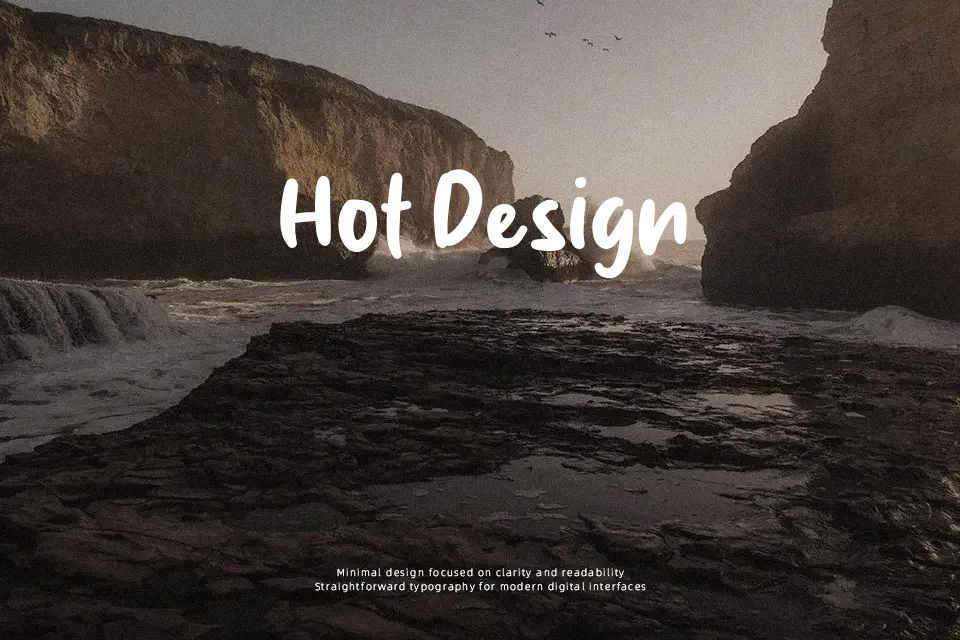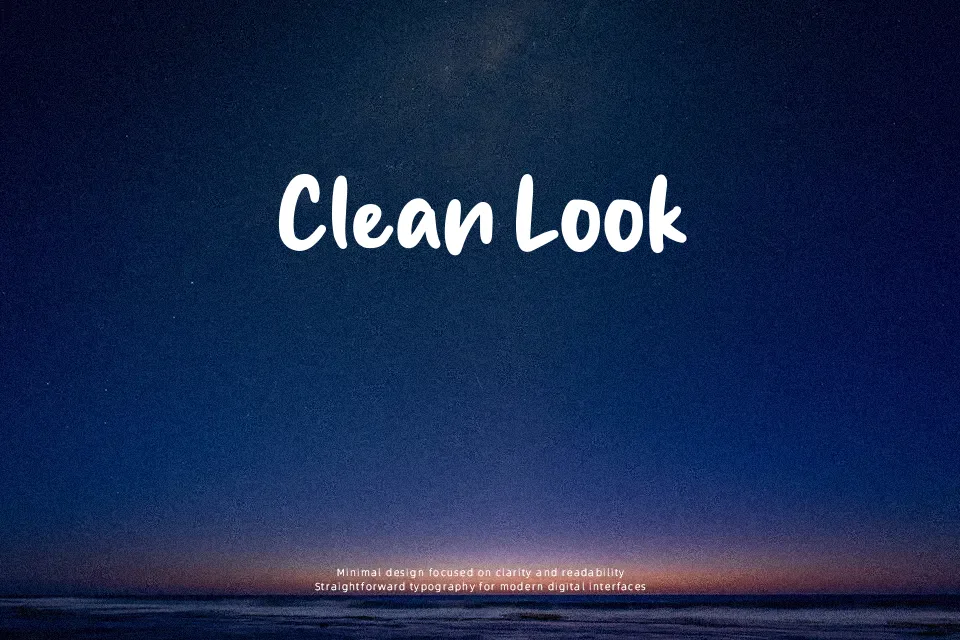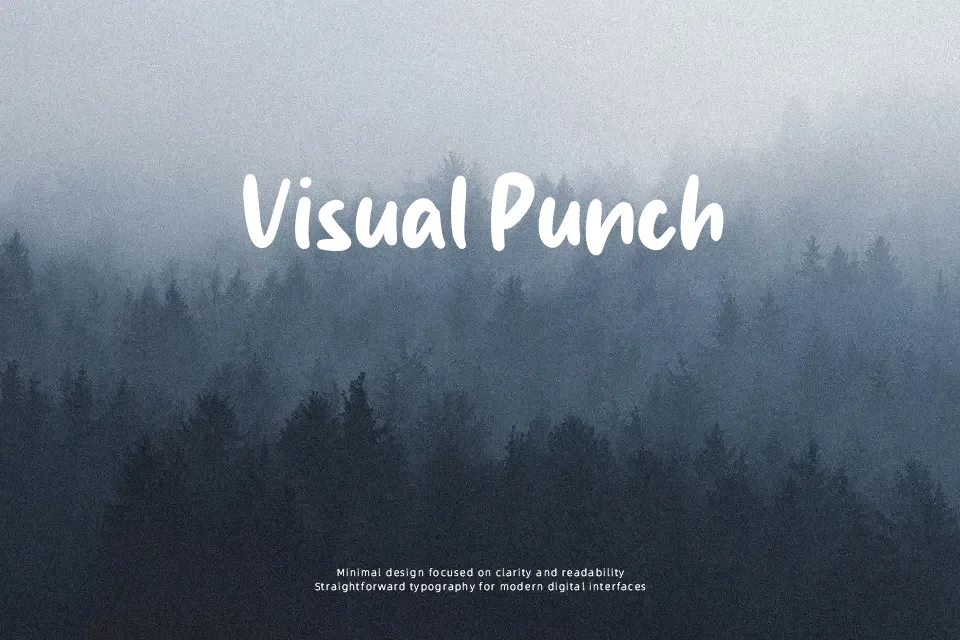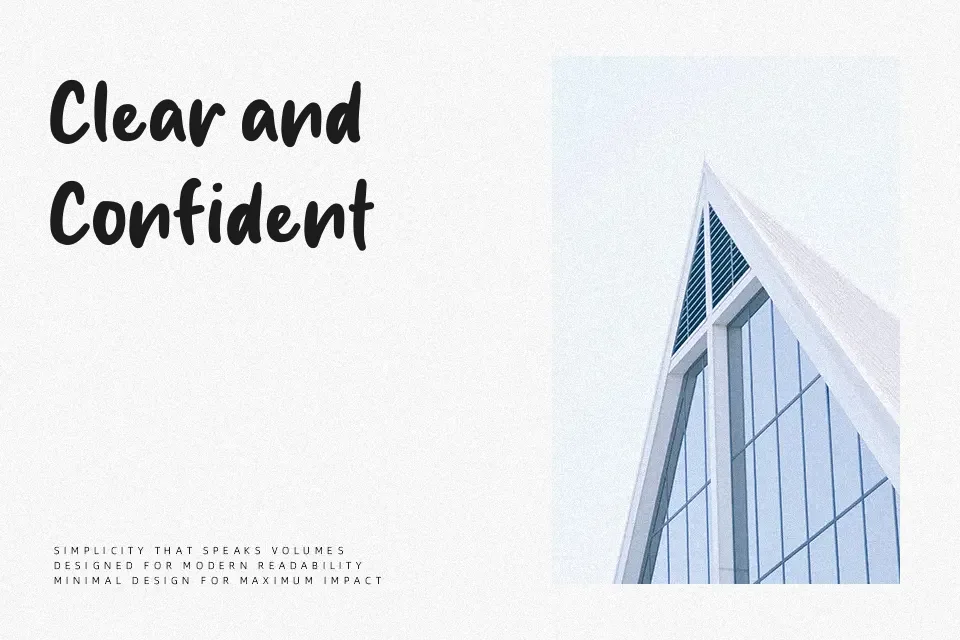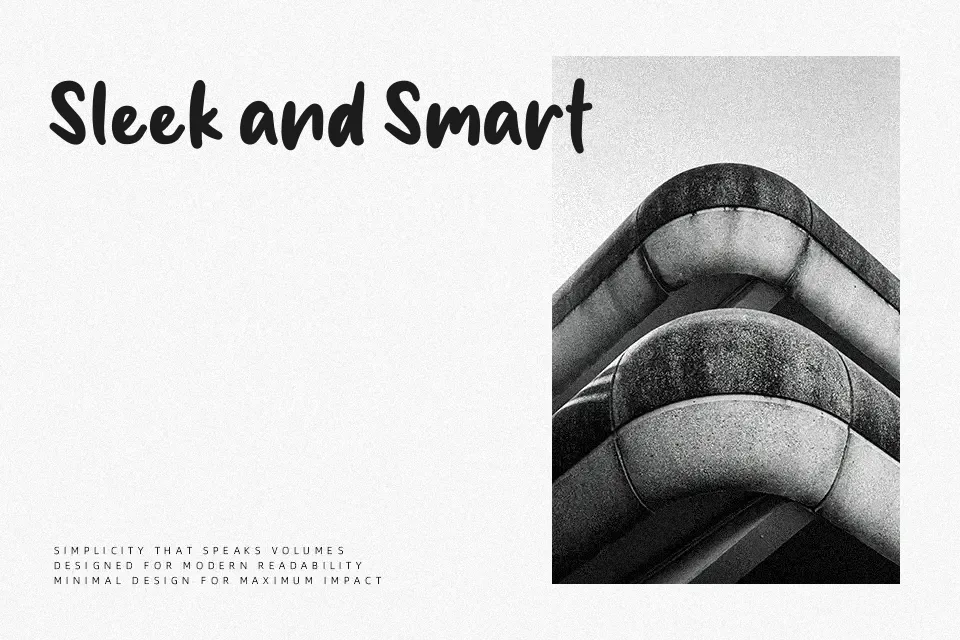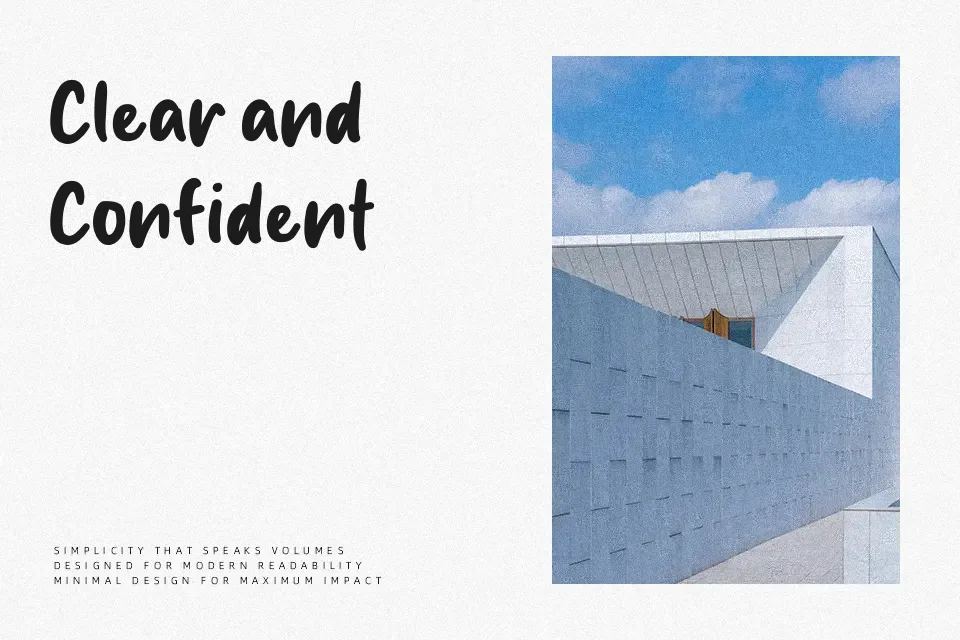
Sticky Sans Font
Sticky Sans Font exhibits a friendly display style characterized by thick, uniform stroke weights, softened terminals, and generous character proportions. The balanced spacing and consistent uppercase and lowercase heights create a lively visual rhythm that works particularly well in short headline treatments, stickers, and animated video titles. At substantial display scales, the solid shapes retain crisp outlines and immediate legibility against vibrant graphic backgrounds. However, the heavy weight and informal geometry diminish comfort when rendered in dense editorial layouts or small body text. Graphic designers will appreciate how effectively the design captures casual energy without sacrificing basic structural clarity in prominent signage.
Best For: children’s book covers, snack food packaging, comic strip titles, youth apparel graphics
Not Ideal For: long paragraph text, corporate annual reports, small mobile UI captions, legal contracts
Perfect for headline, kids, and packaging, with a bold and comic style.